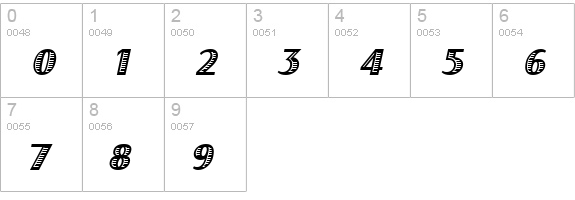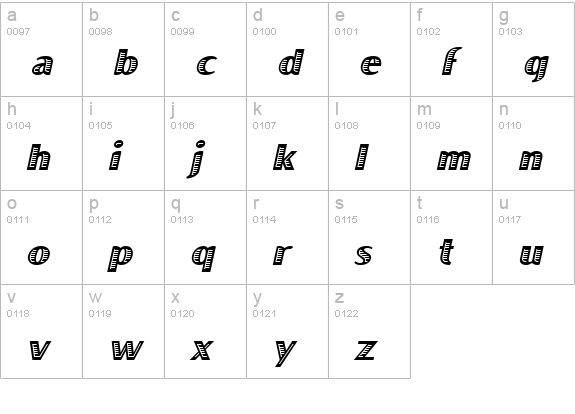
Boca Raton Oblique Font Details
Boca Raton Oblique is a distinctive, italic variant in the Boca typeface family \xE2\x80\x94 well suited to design and typography projects.
Boca Raton Oblique font is a stylish and modern typeface that exudes sophistication and elegance. Its sleek and slanted design adds a touch of flair to any project, making it perfect for branding, advertising, and editorial purposes. With its clean lines and contemporary feel, Boca Raton Oblique stands out as a versatile choice for designers looking to make a statement. The best part? Boca Raton Oblique font is available for free download at FontsMarket.com. This means that you can access this beautiful typeface without any cost, allowing you to elevate your designs without breaking the bank. Don't miss out on the opportunity to add Boca Raton Oblique to your font collection today and take your projects to the next level.